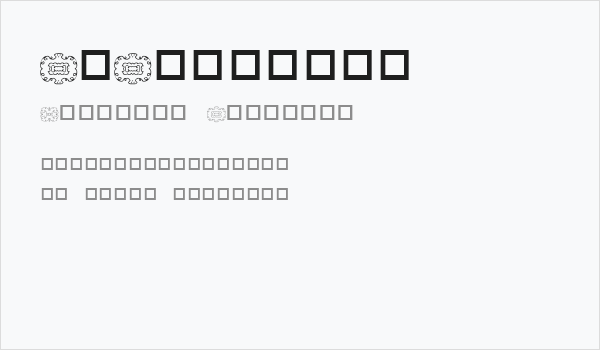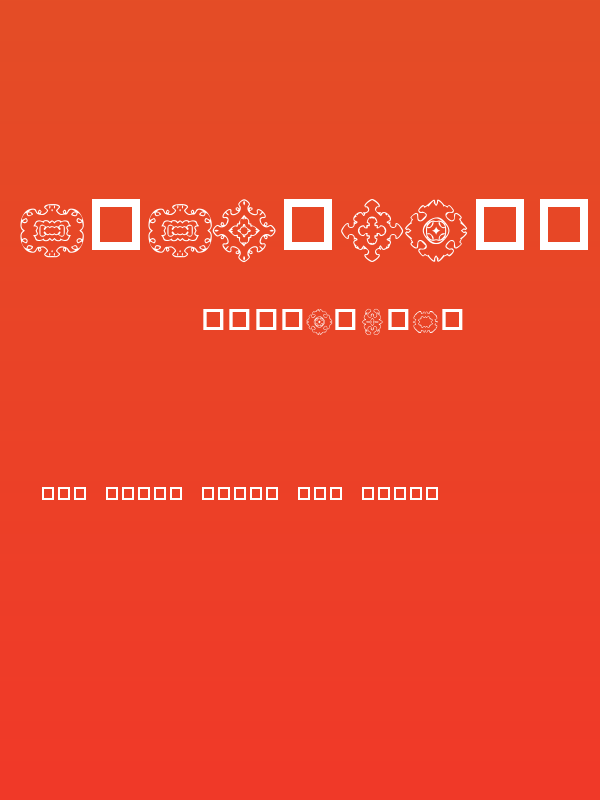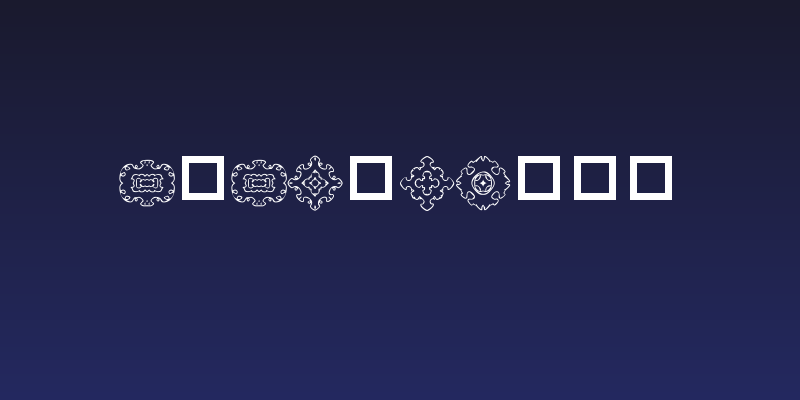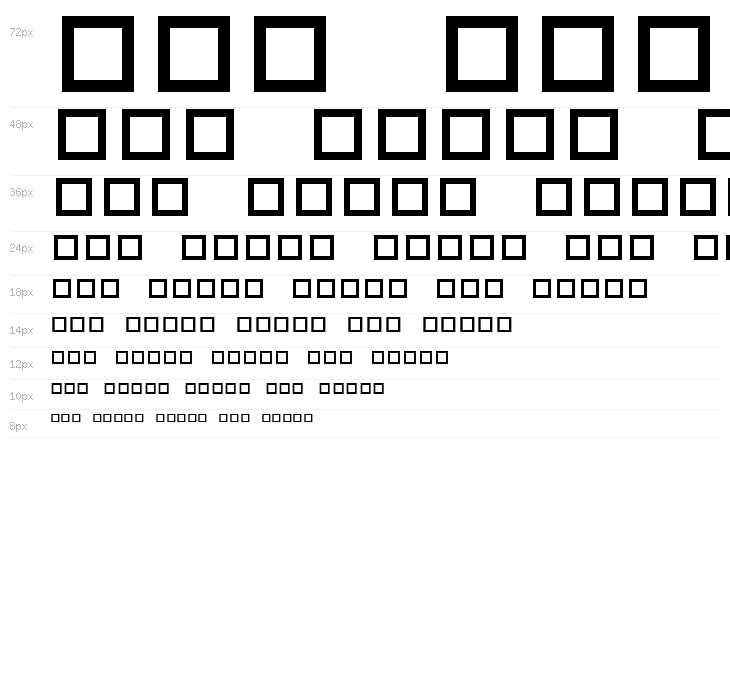
DLDesigns6 Font
DLDesigns6 Description
This is not a valid font. The image consists of decorative elements and square shapes that do not correspond to any recognizable alphabet or numerical system. The design appears to be more ornamental and abstract, lacking the typical characteristics of a functional typeface.
| Use Case | Decorative elements, patterns, borders. |
| Proposed Projects | This design could be used for decorative borders, patterns, or abstract art projects. |